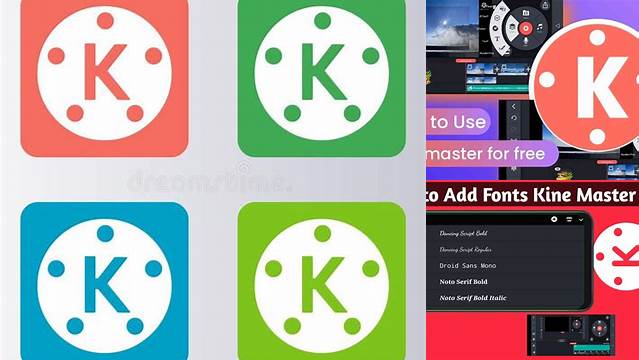
Kinemaster Fonts: Free Downloads & Installation Guide
Hey guys! Are you looking to take your video editing skills to the next level with Kinemaster? One of the key ingredients to creating stunning videos is choosing the right fonts. Fonts can dramatically impact the visual appeal of your projects, adding personality, clarity, and professionalism. So, if you're on the hunt for Kinemaster fonts free download options, you've come to the right place! This article dives deep into the world of fonts, specifically for Kinemaster, and guides you on how to find, download, and install them to make your videos truly stand out.
Why Fonts Matter in Video Editing
Before we jump into the how-to's, let's talk about why fonts are so crucial in video editing. Think of fonts as the voice of your text. They convey tone, style, and emotion just like a voice does in a conversation. The right font can enhance your message, while the wrong one can distract viewers and undermine your video's impact. Imagine using a playful, cartoonish font for a serious documentary – it just wouldn't fit, right? Similarly, a formal, elegant font might feel out of place in a fun, vlog-style video. Choosing the perfect font is about aligning the visual representation of your text with the overall theme and purpose of your video. Consider the mood you want to create, your target audience, and the message you want to send.
Fonts play a critical role in several aspects of video creation:
- Creating Visual Hierarchy: Fonts help structure your text and guide the viewer's eye. Using different font sizes, weights, and styles can help you emphasize key information and create a clear visual hierarchy. For example, you might use a larger, bolder font for titles and headings, and a smaller, more readable font for body text. This visual hierarchy makes your videos easier to follow and understand.
- Reinforcing Brand Identity: If you're creating videos for a business or brand, using consistent fonts can help establish and reinforce your brand identity. Choose fonts that align with your brand's personality and use them consistently across all your video content. This helps viewers recognize your brand and builds a cohesive visual identity. Think of major brands like Coca-Cola or Disney; their logos and typography are instantly recognizable.
- Adding Personality and Style: Fonts are a powerful tool for expressing your creativity and adding personality to your videos. There are countless fonts available, each with its own unique character and style. Whether you're going for a modern, minimalist look or a vintage, retro vibe, the right font can help you achieve the desired aesthetic. Experiment with different fonts to find the ones that best reflect your personal style or the tone of your video.
- Improving Readability and Accessibility: Choosing readable fonts is essential for ensuring that your videos are accessible to a wide audience. Opt for fonts with clear, legible letterforms, and avoid overly stylized or decorative fonts that can be difficult to read. Consider factors such as font size, spacing, and contrast when making your font choices. Remember, your message is only effective if people can actually read it!
So, remember, the next time you're editing a video, don't just slap any old font on there! Think about the message you're trying to convey and how the font can help you achieve that goal.
Google Fonts stands out as a premier resource due to several key advantages. First and foremost, the sheer size of its library is staggering. With hundreds of font families available, spanning a diverse range of styles from classic serifs and elegant scripts to modern sans-serifs and playful display fonts, there’s truly something for every project. This extensive selection ensures that you can find the ideal font to match your video's aesthetic and message, no matter how niche or specific your requirements might be. Secondly, the fact that all fonts on Google Fonts are open-source is a huge benefit. This means that you can use them freely for both personal and commercial projects without worrying about licensing fees or copyright restrictions. This is particularly important for video creators who may be producing content for various purposes, from personal vlogs to professional marketing campaigns. The open-source nature of these fonts fosters creativity and allows for widespread adoption without financial barriers.
Furthermore, the fonts on Google Fonts are web-optimized, meaning they are designed to load quickly and display clearly on screens of all sizes and resolutions. This is crucial for video editing, where visual quality is paramount. Using web-optimized fonts ensures that your text elements will look crisp and sharp, whether your video is being viewed on a desktop computer, a mobile device, or a large-screen television. This attention to detail can significantly enhance the overall viewing experience and make your videos more professional. The website's user-friendly interface is another major advantage. Google Fonts is designed to be intuitive and easy to navigate, even for users who are not particularly tech-savvy. The robust filtering and sorting options allow you to quickly narrow down your search based on various criteria, such as font category (serif, sans-serif, display, handwriting, etc.), style (bold, italic, condensed, etc.), language support, and number of styles available within a family. This makes it simple to find exactly what you're looking for, saving you time and effort. Additionally, Google Fonts provides helpful previews of each font in various sizes and contexts, allowing you to see how the font will look in your video projects before you even download it. This is an invaluable feature that helps you make informed decisions and avoid font choices that might not work well in practice.
DaFont: DaFont is another fantastic website offering thousands of free fonts. It has a slightly different vibe than Google Fonts, with a more eclectic mix of styles. You'll find everything from quirky handwritten fonts to bold display fonts and even dingbats (those fun symbol fonts). However, it's essential to check the license for each font on DaFont, as some are free for personal use only. Always make sure the license allows for commercial use if you plan to use the font in videos you'll be monetizing.